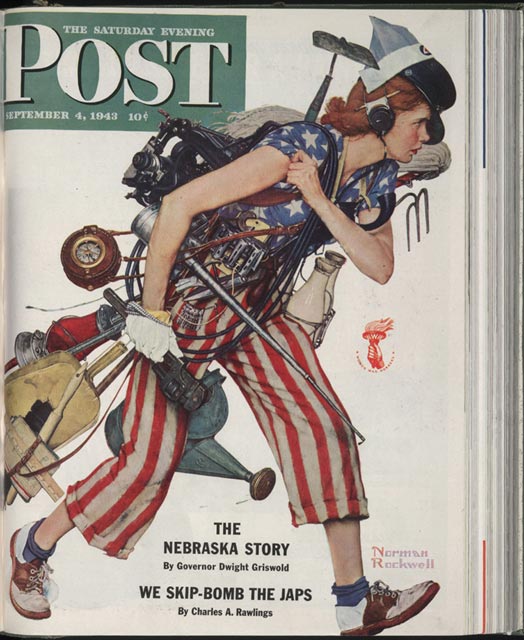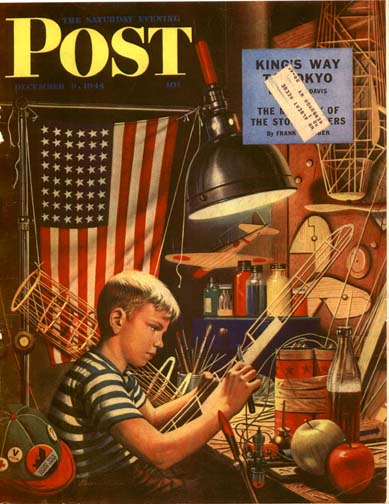
Saturday Evening Post
In the days before television, and to a certain extent before radio, and certainly before the internet, the great unifying voice of any nation was its mass circulation magazines. In Australia, it was The Bulletin, recently deceased and The Australian Women's Weekly, Britain has a rich group of these still surviving and the US had The Saturday Evening Post. Wikipedia's entry on this great institution is interesting enough but there is no information on production issues such as where was it printed, using what resources. What was it paper consumption and circulation?
The are difficult questions but someone in your eclectic readership might know or like to share memories.
Rob,
My recollection is Look was more likely to be gravure in whole or part whereas SEP looked like letterpress. Look started in 1937 and relied more on photography: SEP was known and valued for its cover artwork. SEP's history is much longer than Look as it claimed ancestry going back to Benjamin Franklin. Having the market pretty much to itself in the early days, I suspect SEP's circulation was higher at its peak although it trailled Look later on.
Communications being more primitive and, being a weekly circulating in a large country, I suspect it must have been at the cutting edge of technology given book size and the large amount of quality advertising it carried.
Hear, hear and allow me add my 10 or 15 cents worth.
I had understood for as long as I can remember that The Saturday Evening Post was the brainchild of printer, publisher, statesman, inventor and entrepaneur Ben. Franklin  --  though I have never tested the veracity of my information,  taking it on faith because it was contained in the hallowed pages of the Inland Printer which I as a youth and a young man regarded as the epitome of truth and wisdom.
The Post itself had a woodblock style profile of the aforementioned Ben. F. at the top of the contents page, about page 3 on the example before me.
I would imagine that the periodical passed through many owners and transformations until eventually, in its last great days as a viable and influential publication, it became part of the impressive collection of magazines that were part of the Curtis Publishing Company being purchased by Cyrus Curtis in 1897  for the sum of $1000. Another notable magazine from that collective that easily comes to mind was Harper's Bazaar and of course there was The Ladies Home Journal.
Curtis Publishing was a huge, larger than life concern - the Microsoft of weekly and monthly magazine publishers.
All Curtis' printing was done by the letterpress process.  No gravure or lithography - in fact I had read that if a Curtis executive even expressed an interest in an alternative process he was asked to leave.
Curtis designed and built their own presses - thought to be the best and most reliable machinery for multi color rotary letterpress of their time.
The presses needed a most consistant supply of specialist paper to enable the print combine to produce its many publications, so that Curtis had its own paper mills and owned associated concerns to make a product exclusively for its own use.
Curtis was enormous,  a mammoth that towered above most others when letterpress was king.  I can recall reading an article with an associated aerial picture of the plant covering an area far greater than an entire city block.  It was however,  an inflexible dinosaur doomed to extinction.
On the subject of circulation for SEP I believe that the peak number of circulated copies of 6,652,000 was reached in 1962
Curtis' design and the appearance of its many publications was sound but conservative in both jouralistic and advertising fields. It had not altered typographically since the early years of the 20th Century and the changes to illustrative matter paid lip service only to what was to be seen in popular fashion.
The rapidly improving quality and public acceptance of offset in the 50's and 60's and the velvety brilliance of top glossy gravure publications became economically competitive as the production runs on the American continent got longer owing to increasing consumer demand for brighter and more daring reading to compete with the rising inroads into the information and entertainment market by television  and high budget motion pictures.
So Curtis collapsed, bankrupt in the 1970's and with it publication of The Saturday Evening Post, Harpers' Bazaar, The Country Gentleman and Jack and Jill ceased  --  to name just a few.  I understand though that The Ladies Home Journal, published now by another company, still dominates at supermarket checkout racks.
I have early memories as a tot of walking the block from home to the newsagent with my father to pick up his ordered copy of SEP -  this  just before the start of WW2 during which I suppose supply of imported publications into Oz generally stopped until 1946 or so when I remember seeing the familiar masthead again and with the benefit of a few years of growing, better appreciated what was within..